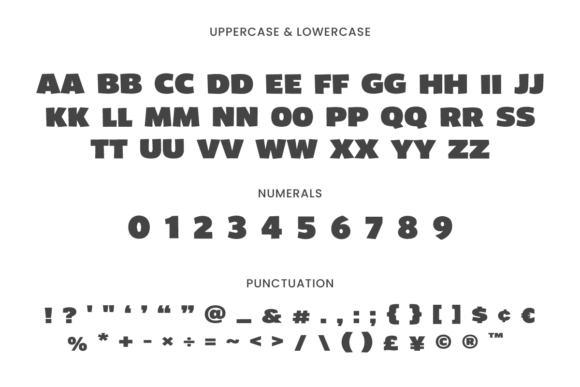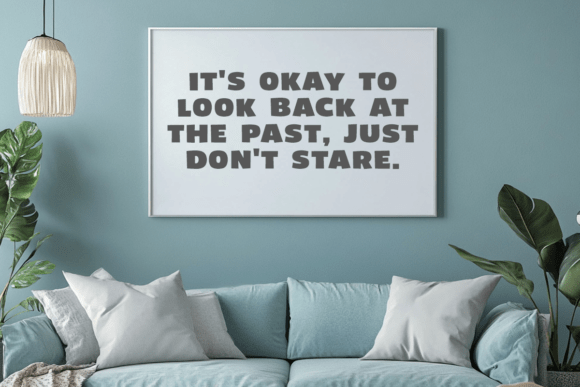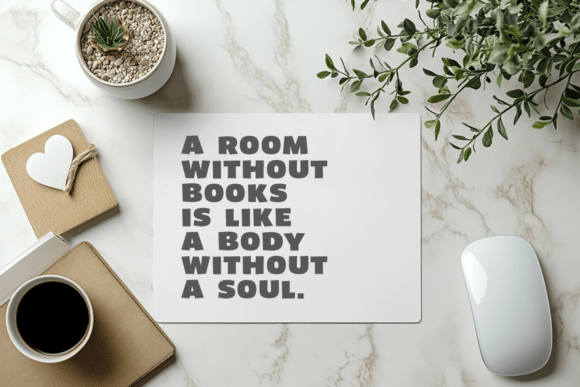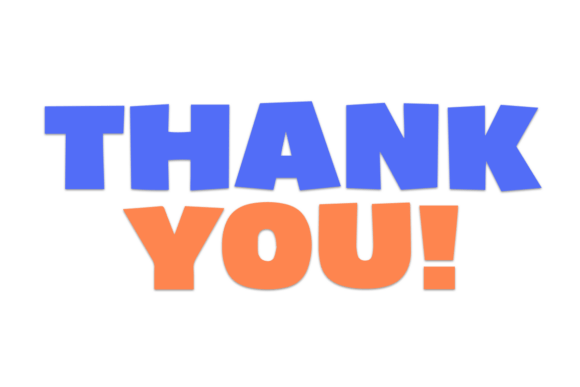
Introduction to Divergent Strong Font Font
Fonts play a crucial role in design, and the Divergent Strong Font font is a typeface that brings both character and versatility to any project. Whether you’re working on a branding project, a website, or a print design, the Divergent Strong Font font offers a unique style that can elevate your work.
Meet Divergent Strong – a font that refuses to sit still.
Bold at its core and bursting with personality, Divergent Strong is designed to stand out, speak loud, and bring a sense of playful confidence to every word it shapes Its dynamic curves and exaggerated forms create a lively rhythm on the page, making it perfect for designs that demand attention without taking themselves too seriously.
Key Features of Divergent Strong Font Font
Why Choose Divergent Strong Font Font?
The Divergent Strong Font font is more than just a typeface – it’s a design tool that helps you communicate your message with style and clarity. Its unique character set and versatile design make it suitable for a wide range of applications, from elegant invitations to bold headlines.
With its carefully crafted letterforms and balanced proportions, the Divergent Strong Font font ensures readability and visual appeal across all mediums.
What makes Divergent Strong Font font special?
The Divergent Strong Font font stands out with its unique design, exceptional readability, and versatility across various design applications.